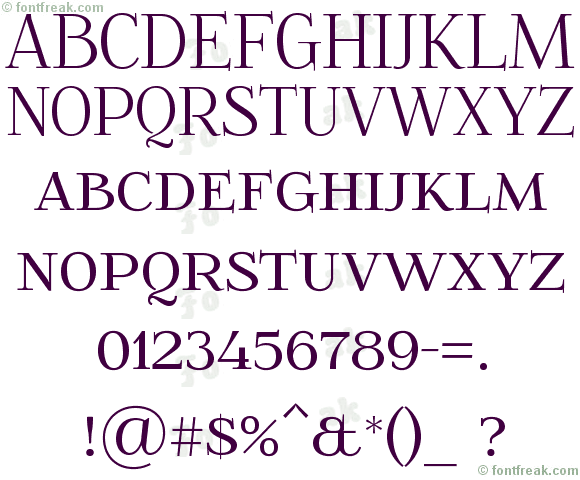
Foglihten Petitecaps
About Foglihten Petitecaps
Foglihten Petitecaps is a striking serif font designed by Grzegorz L. This typeface falls into the category of display fonts, characterized by its elegant and distinctive style. The font showcases a moderate stroke weight with a subtle contrast that enhances its refined appearance. Its letterforms are well-spaced, allowing for excellent legibility while maintaining an aesthetic appeal. The decorative elements of Foglihten Petitecaps, such as its unique serifs, add a touch of sophistication, making it ideal for various creative applications.
This font is particularly well-suited for use in wedding invitations, where its elegance can convey a sense of formality and celebration. It also works wonderfully in movie posters, where the unique style can capture attention and set the tone for the film. Restaurant menus benefit from the font’s clarity and charm, making dishes look more appetizing. Additionally, graphic designers might find Foglihten Petitecaps perfect for branding projects, giving logos and promotional materials a memorable and stylish edge.
The target audience for this font includes graphic designers, small business owners, and content creators looking to enhance their projects with a touch of sophistication. Whether you are designing for print or digital media, this font can elevate your work with its unique flair.